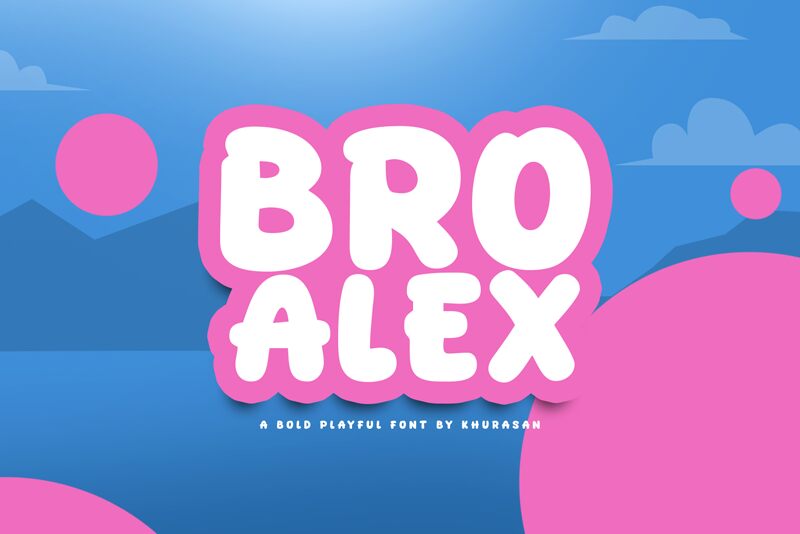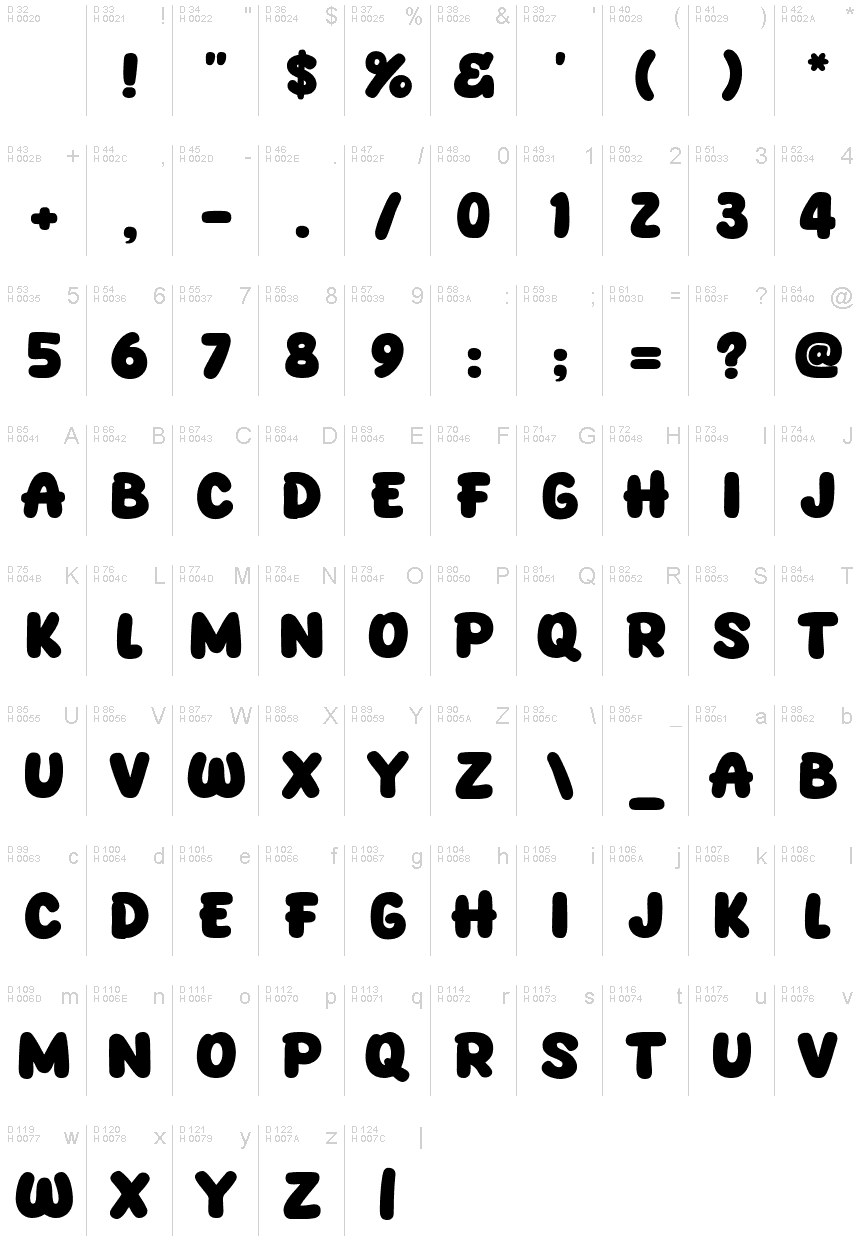
Bro Alex
Bro Alex, designed by the talented Khurasan, is a striking display font that brings a playful and bold energy to any creative project. Its cartoon style, characterized by an extra-bold weight, makes it an ideal choice for projects aiming to capture attention and evoke a sense of fun. Whether you're designing an eye-catching logo, engaging marketing materials, or vibrant children's book illustrations, Bro Alex adds a lively and dynamic element that can transform your work.
The unique characteristics of this font allow it to stand out in digital and print formats alike, making it versatile for various applications. Dive into the world of Bro Alex and let your creativity flourish with its distinctive charm.